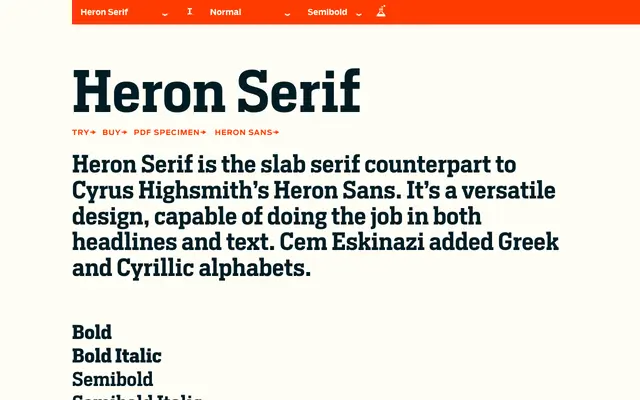
Heron Serif
Occupant Fonts · Cyrus Highsmith · 2010
A slab serif by Cyrus Highsmith designed as the companion to Heron Sans, covering five weights with condensed cuts and extended script support across Latin, Cyrillic and Greek.
Designed by Cyrus Highsmith and released in 2010, it pairs directly with Heron Sans as its slab serif counterpart, sharing proportions and rhythm to allow the two families to work together across a publication or identity system. The family runs from Light to Bold with matching italics in both standard and condensed widths, giving twenty styles in total. Cem Eskinazi extended the character set to cover Cyrillic and Greek, making it a strong choice for multilingual editorial and publishing projects.
Explicitly described as a slab serif counterpart to Heron Sans, with bracketed serifs and sturdy construction suited to both display and text work.